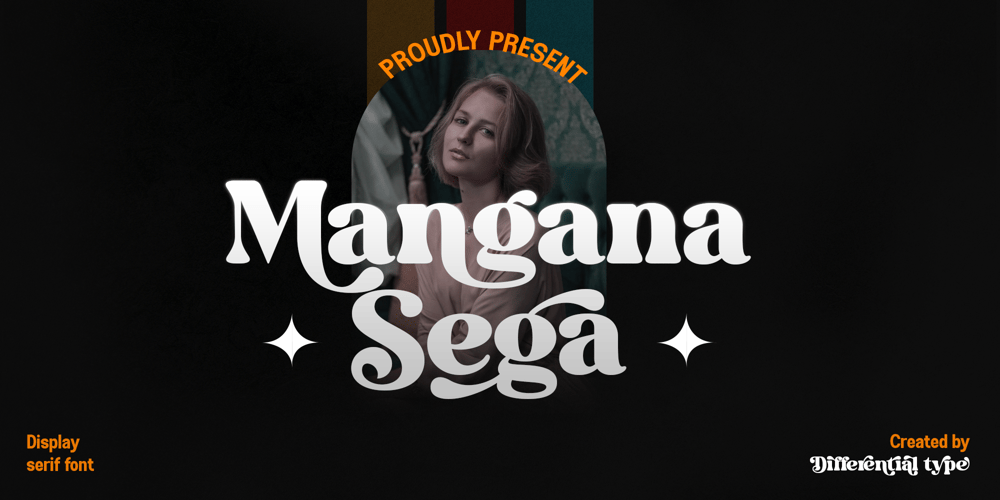
Mangana Sega Font Family was designed by Sidik Sidik and published by Differentialtype. Mangana Sega contains 1 styles and family package options. Mangana Sega is a bold display serif font with a retro design. Mangana Sega is equipped with alternate and ligature, which will add an elegant and luxurious impression to every project you make. Mangana Sega is PUA encode, which mean you can easily access all required alternates and swashes.